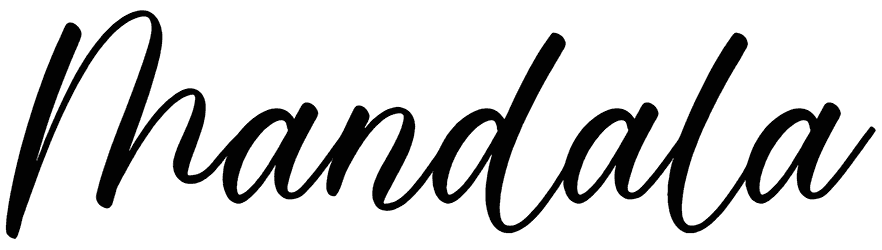
Mandala Font
Modern script texts are always so popular and you can have this style for your project with this unique cursive font. The soft and cursive letters of the Mandala font are going to give a salient visual to your words. Put this romantic font on your party invitation flyer or other creative projects and amaze your followers.